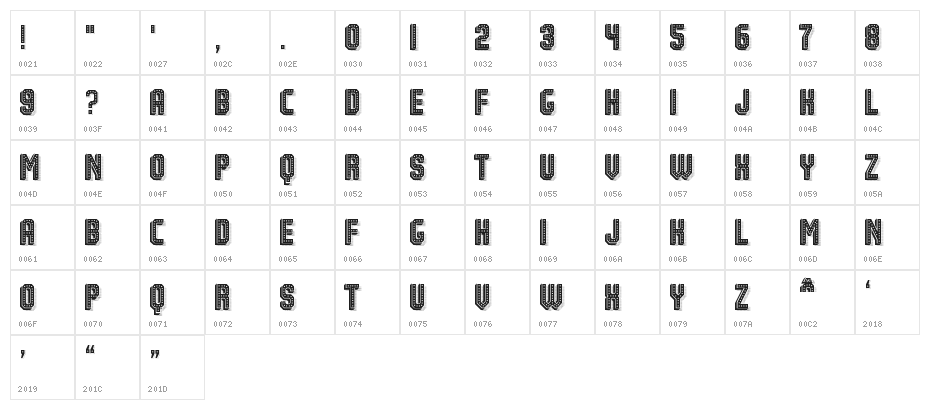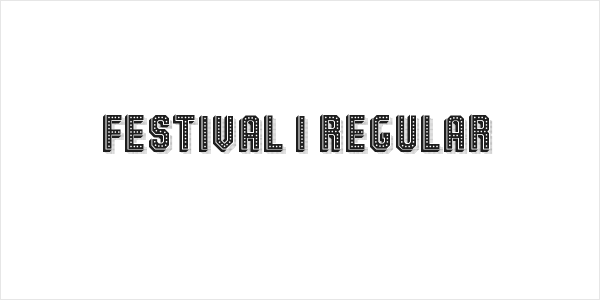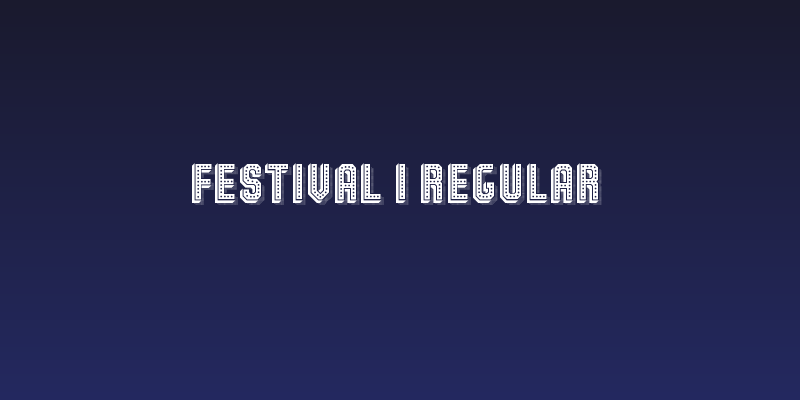
Festival 1 Regular Font
Festival 1 Regular Description
This font features a bold, decorative style with a distinct vintage flair. Each character is outlined with a series of dots, reminiscent of marquee lights, giving it a theatrical and eye-catching appearance. The letters are uppercase and maintain a consistent height, with a geometric structure that adds to its boldness. The numbers and special characters follow the same design, ensuring uniformity across all elements. The font's playful yet structured design makes it ideal for projects that require a touch of nostalgia and flair.
Overall StyleVintage
Proposed ProjectsIdeal for event posters, theater signage, retro-themed branding, and any project needing a bold, eye-catching headline.